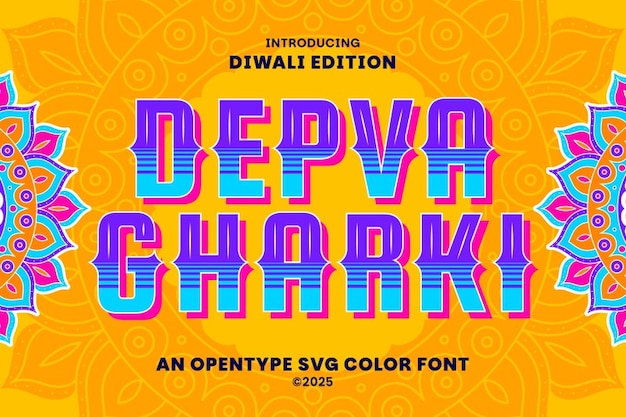
Depva Gharki Font
Depva Gharki is a lively and decorative typeface that radiates the festive energy of Diwali. With bright, colorful elements and intricate detailing, it captures the joy, tradition, and sparkle of celebration. Perfect for invitations, holiday packaging, or any design that wants to feel rich in culture, light, and festivity.